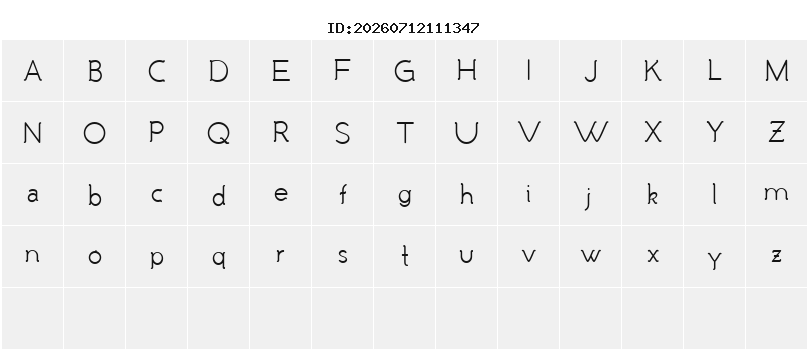
Malandrino Preview
• Font Name: Malandrino
• Full Font Name: Malandrino
• Designer: Andrea Cerboneschi & Claudio Lietti
• Manufacturer: Studio Monocromo, Monofonts.
About Malandrino.ttf
Malandrino.ttf is a modern, elegant sans-serif font designed for ultimate readability and visual harmony. Perfect for branding, headlines, web design, and print materials.